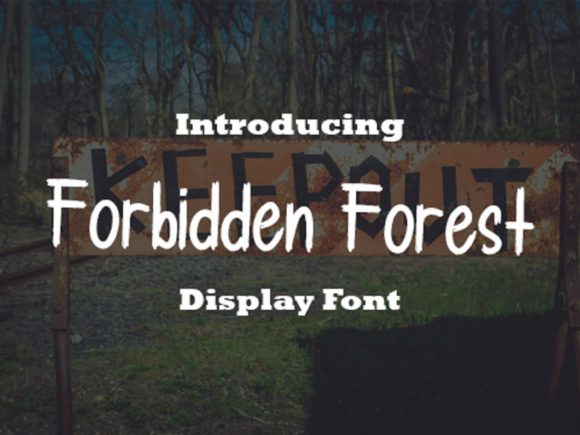
Journey into the Forbidden Forest, where enchanting characters dance and whispers of magic linger in the air. Our Forbidden Forest Font, a captivating script creation by rangkaiaksara, beckons you to embrace the allure of handwritten elegance. With its natural and unique flair, this font transcends boundaries, adapting seamlessly to a kaleidoscope of design possibilities.
Unleash your creativity and let your imagination soar as you explore the boundless potential of Forbidden Forest. Its charming imperfections, reminiscent of a calligrapher's quill, evoke a sense of authenticity and warmth that will leave an indelible mark on your audience.
Picture your digital clock adorned with the whimsical strokes of Forbidden Forest Font. Its playful curves and graceful swashes breathe life into every hour, minute, and second, transforming your mundane timepiece into a captivating work of art. The captivating allure of this font will captivate your audience, drawing them into a world where time takes on a magical dimension.
Forbidden Forest Font is not merely a collection of letters; it's an invitation to embark on an extraordinary typographic adventure. Its versatility knows no bounds, effortlessly enhancing logos, invitations, greeting cards, social media posts, and branding materials. Its friendly and approachable nature makes it perfect for any project that seeks to exude a touch of charm and personality.
Step into the Forbidden Forest and let your creativity flourish. Transform your digital creations into enchanting realms where imagination reigns supreme. Experience the magic of Forbidden Forest Font today and unlock a world of typographic possibilities that will leave your audience spellbound.